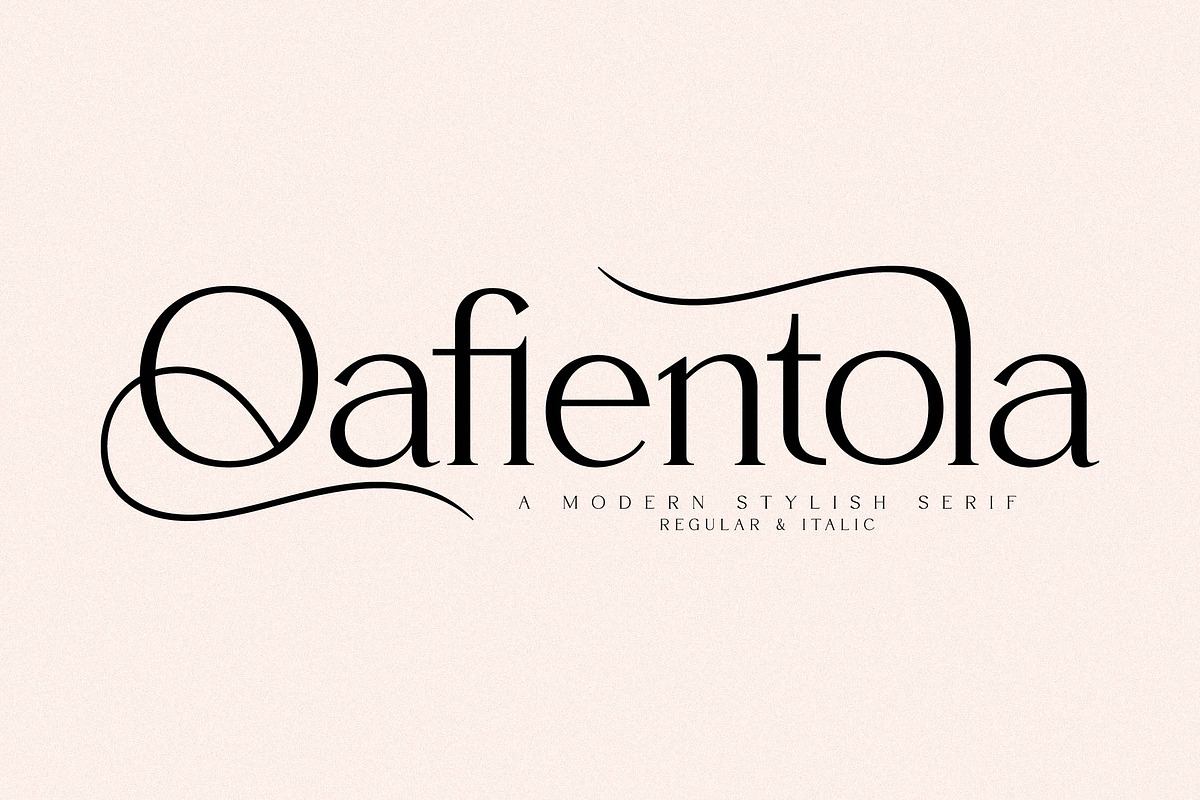
Qafientola – A Modern Stylish Serif Font Free Download is a high-fashion typeface that blends contemporary flair with timeless elegance. With sleek contrast, sharp serifs, and graceful curves, Qafientola is perfect for luxury branding, editorial layouts, packaging design, wedding stationery, and chic social media content.
Its modern structure adds polish to your typography while maintaining artistic personality and character. Whether you're designing for a beauty brand, boutique label, or a fashion-forward magazine, Qafientola delivers sophistication with every letter.
Designers love Qafientola for its ability to elevate visuals across digital and print formats. Want to give your next design a bold and stylish edge? Download Qafientola – A Modern Stylish Serif Font Free Download and bring elegant modernism to your creative work.